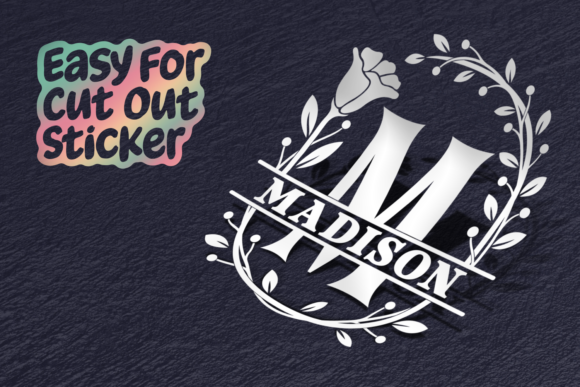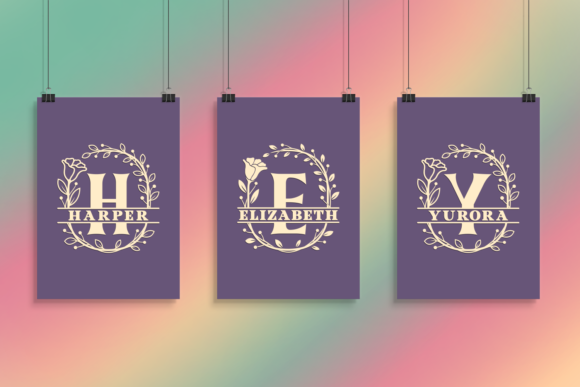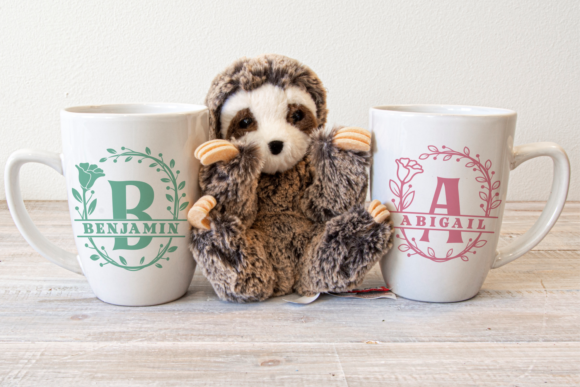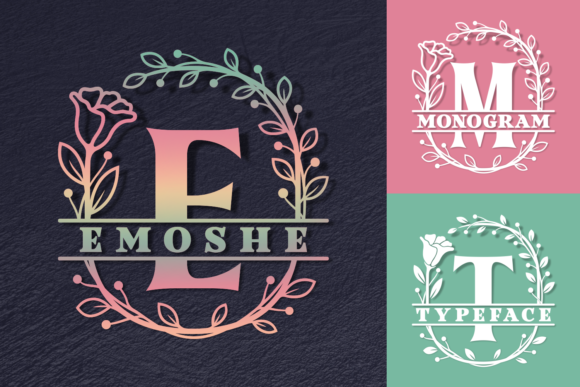
Introducing Emoshe Font: Elevate Your Designs with Elegance and Authenticity
In the world of typography, fonts play a crucial role in conveying the tone and aesthetic of a design. For designers and crafters seeking to add a touch of sophistication and charm to their creations, Emoshe Font is an excellent choice. This elegant and authentic decorative font is designed to inspire and elevate your designs, making it a valuable addition to your font library.
What is Emoshe Font?
Emoshe Font is a beautifully crafted decorative font that exudes elegance and refinement. Its delicate and intricate design makes it perfect for a variety of creative projects, from digital designs to print materials. Whether you’re working on a logo, branding, packaging, or social media graphics, Emoshe Font is sure to make your designs stand out.
Key Features of Emoshe Font
- Elegant and Authentic Design: Emoshe Font boasts an elegant and authentic design that adds a touch of sophistication to any project.
- Delicate and Intricate: The font’s delicate and intricate design makes it perfect for creating beautiful and eye-catching graphics.
- High-Quality Typography: Emoshe Font is designed with high-quality typography in mind, ensuring that your designs look professional and polished.
- Versatile: This font is versatile and can be used for a wide range of creative projects, from digital designs to print materials.
Benefits of Using Emoshe Font
Adding Emoshe Font to your library can bring numerous benefits to your design workflow. Here are a few:
- Enhance Your Designs: Emoshe Font can elevate your designs and add a touch of elegance and sophistication.
- Stand Out from the Crowd: With its unique and delicate design, Emoshe Font can help your designs stand out from the crowd and grab attention.
- Save Time: Having a high-quality font like Emoshe Font in your library can save you time and effort in searching for the perfect font for your projects.
- Increase Productivity: With Emoshe Font, you can focus on creating amazing designs without worrying about the typography.
Who Can Benefit from Emoshe Font?
Emoshe Font is perfect for a variety of designers and crafters, including:
- Graphic Designers: Graphic designers can use Emoshe Font to create stunning logos, branding, and marketing materials.
- Digital Artists: Digital artists can use Emoshe Font to add a touch of elegance and sophistication to their digital art.
- Crafters: Crafters can use Emoshe Font to create beautiful and eye-catching craft projects, such as handmade cards and invitations.
- Small Business Owners: Small business owners can use Emoshe Font to create professional and polished marketing materials.
In conclusion, Emoshe Font is an elegant and authentic decorative font that can elevate your designs and add a touch of sophistication and charm. With its delicate and intricate design, high-quality typography, and versatility, Emoshe Font is perfect for a wide range of creative projects. Whether you’re a graphic designer, digital artist, crafter, or small business owner, Emoshe Font is a valuable addition to your font library.